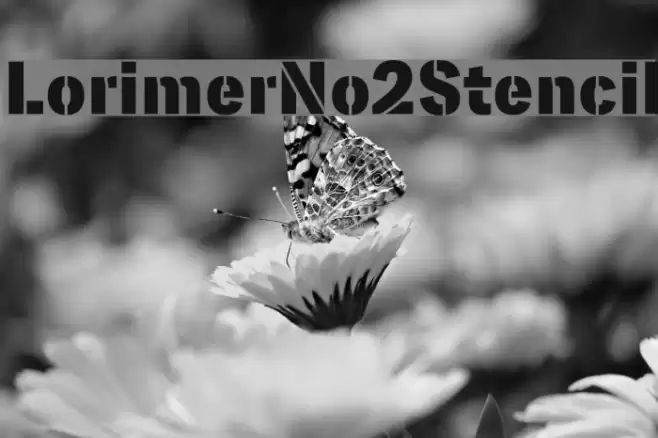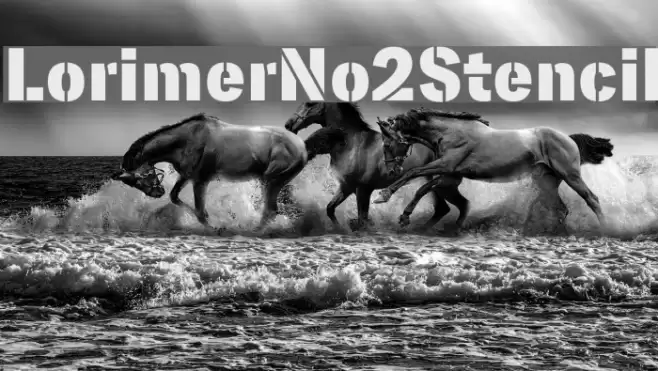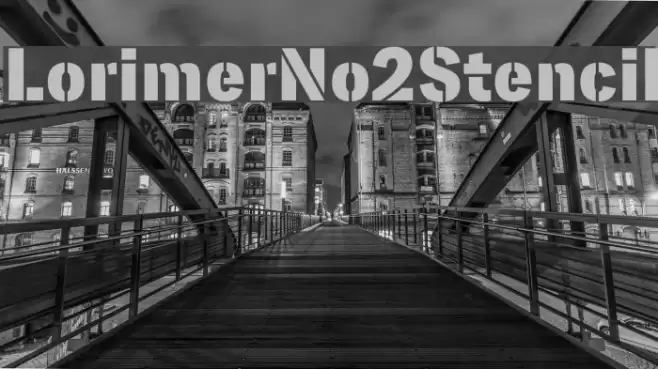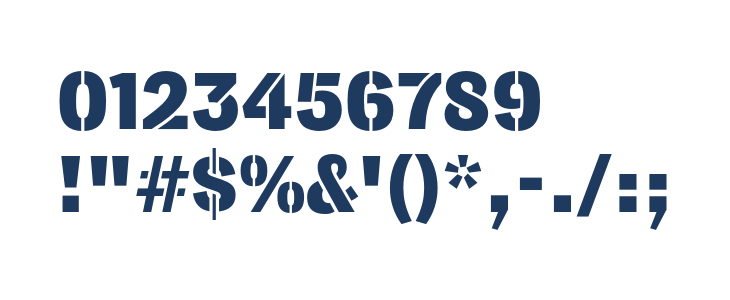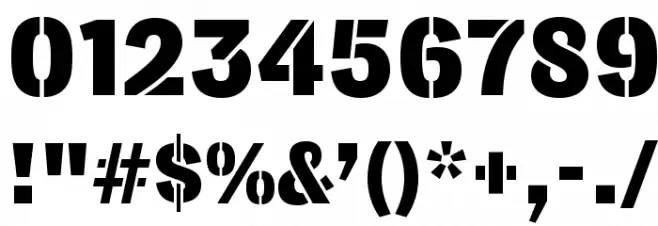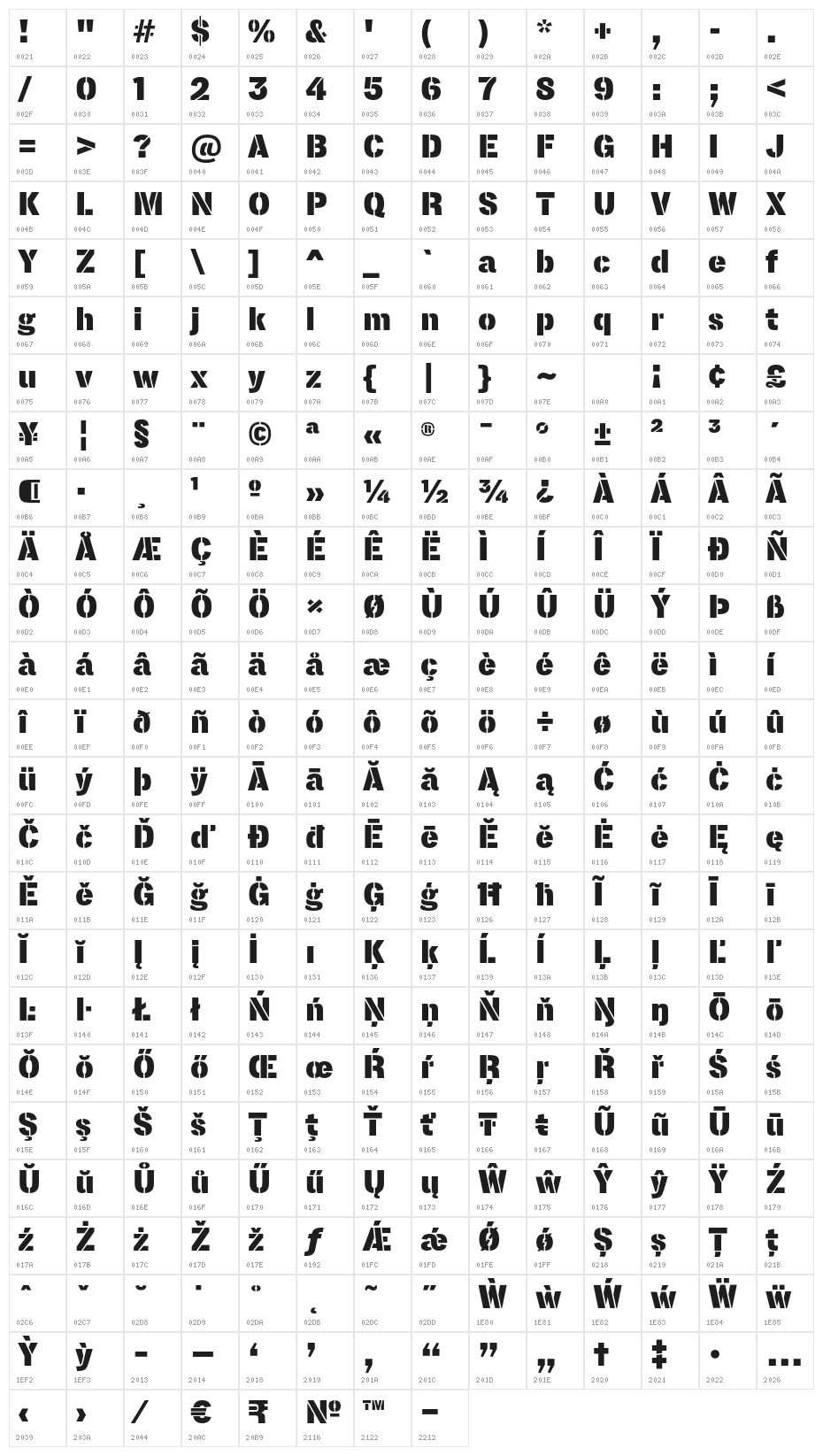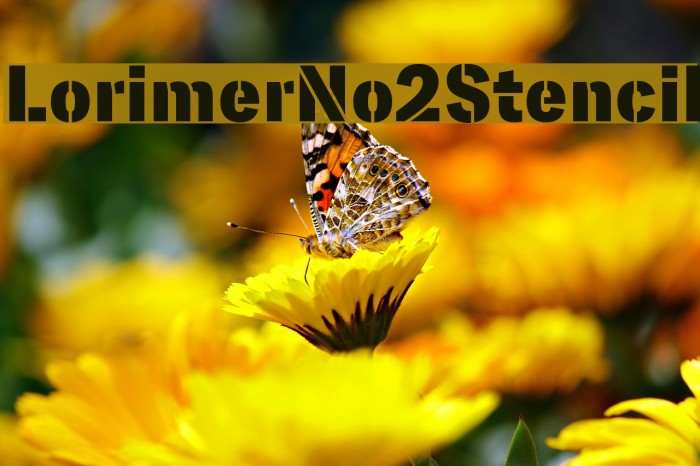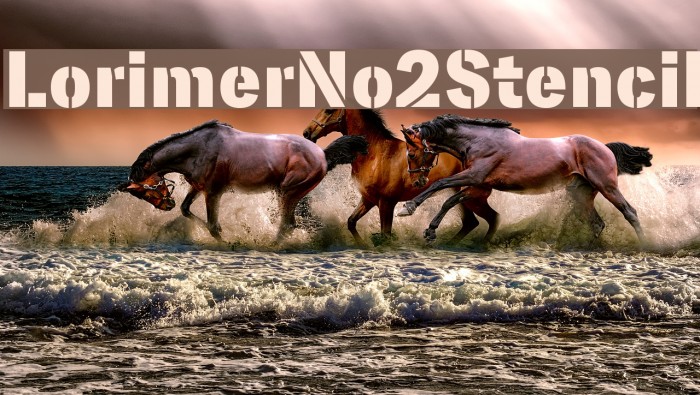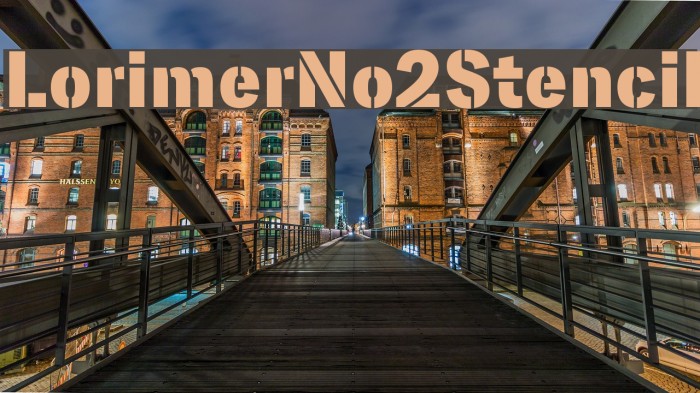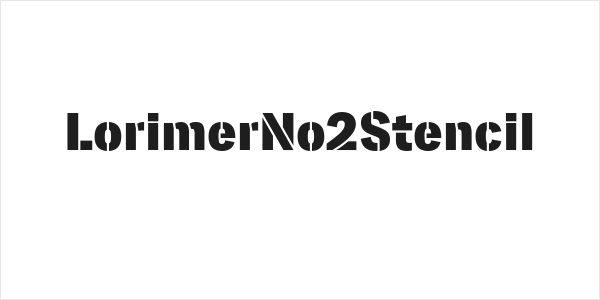
LorimerNo2Stencil Font
LorimerNo2Stencil Description
This font features a bold, stencil-like design with strong geometric shapes and high contrast between thick and thin strokes. The uppercase and lowercase letters maintain a consistent style, characterized by their cut-out sections that give it a distinctive, industrial look. The numerals and special characters follow the same aesthetic, ensuring uniformity across all glyphs. Its bold presence makes it ideal for impactful designs where readability and a modern, edgy appearance are desired.
A bold, stencil-style font with high contrast and geometric shapes from Uncategorized fonts.
- Proposed Projects: Ideal for branding, posters, signage, and any project requiring a bold, industrial aesthetic.
- Overall Style: Modern, Industrial